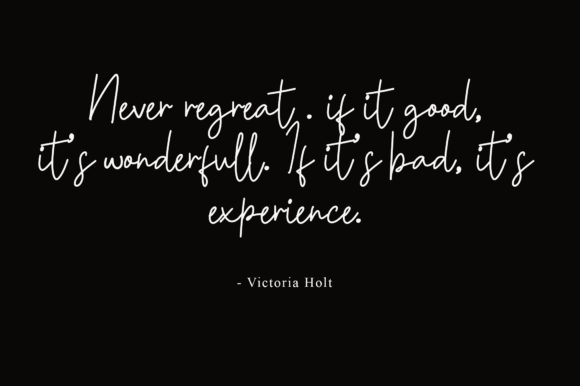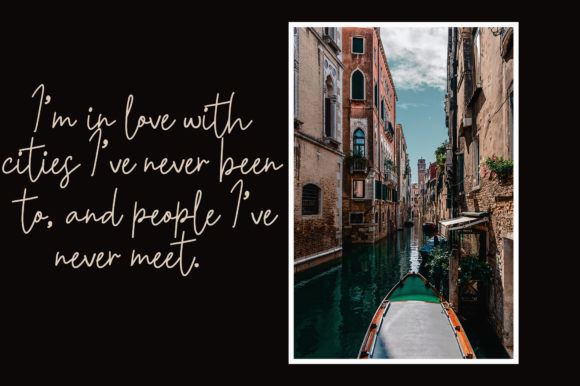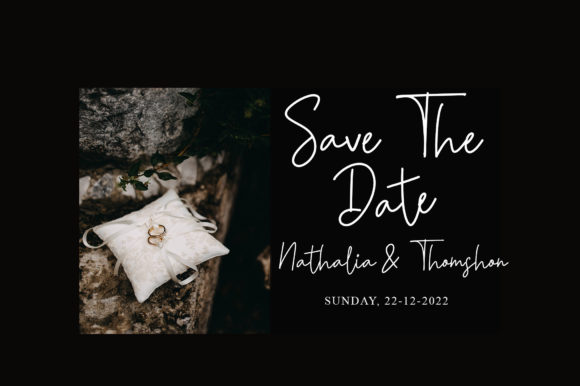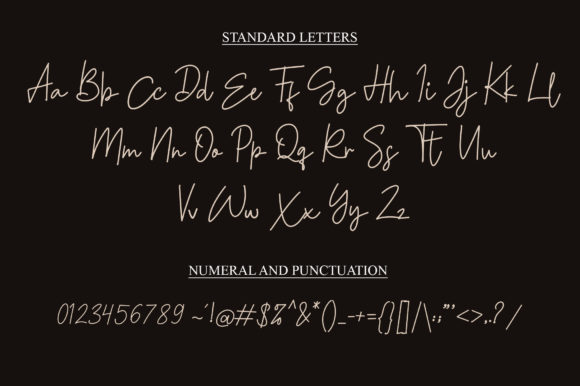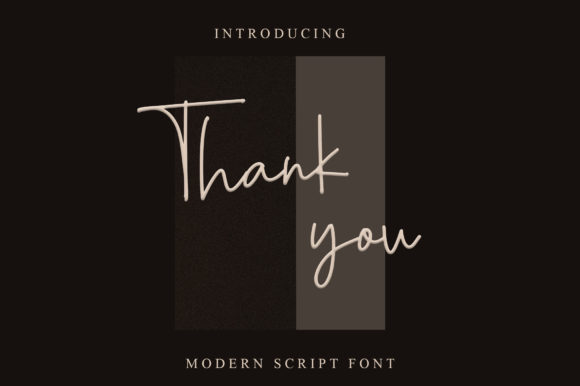
Introduction to Monalisa Signature Font
Have you ever been in the midst of a creative project, struggling to find the perfect font to elevate your design? The blank page stares back at you, and all you can think about is the elusive ‘wow’ factor. Well, we’re here to tell you that your search is over – welcome to the world of the Monalisa Signature Font.
This exquisite script font is the epitome of sophistication and elegance, boasting delicate, thin lettering that’s sure to leave a lasting impression. Whether you’re working on a high-end branding project or a romantic wedding invitation, the Monalisa Signature Font is the perfect match.
As a valuable resource for designers, the Monalisa Signature Font offers a range of stylish alternates and ligatures, making it a game-changer for any creative endeavor. With a transparent background and high-quality design, this font is ready to take your projects to the next level – and it’s available for free download.
Key Features of Monalisa Signature Font
- High-quality design resource ideal for creative projects and personal branding
- Unique, elegant script font with a transparent background, perfect for adding a touch of sophistication to designs
- Perfect for creating eye-catching logos, social media graphics, and other design elements for personal branding and creative projects
Honest Review: Monalisa Signature Font
I recently had the chance to test out the Monalisa Signature Font, and I’m excited to share my honest thoughts. As a designer, I’m always on the lookout for high-quality design resources that can elevate my creative projects.
- Unique and elegant design style, perfect for branding and marketing materials.
- Comes with a transparent background, allowing for seamless integration into any design project.
However, I did encounter a few limitations with the Monalisa Signature Font.
- Only available in a limited range of weights and styles, which might be a drawback for some designers.
- The font could benefit from more language support, as it’s currently only available in a few languages.
Overall, the Monalisa Signature Font is a solid addition to any designer’s library. While it has some limitations, its unique design style and high-quality design make it a valuable resource for any creative project.
Tips for Getting the Most Out of Monalisa Signature Font
Experiment with different font sizes, colors, and combinations to create a unique design. Use the font in conjunction with high-quality images and transparent backgrounds for a professional look.
Common Use Cases for Monalisa Signature Font
The Monalisa Signature Font is ideal for creating professional business cards, logos, and marketing materials. It’s also suitable for personal projects, such as creating a portfolio or blog.
Alex Brush is a elegant, handwritten font that exudes sophistication and style. It features a high-quality design with a transparent background, making it ideal for design resources requiring a touch of elegance. Alex Brush is a free download and suitable for a wide range of creative projects.